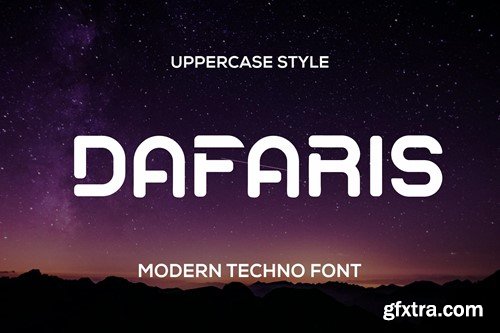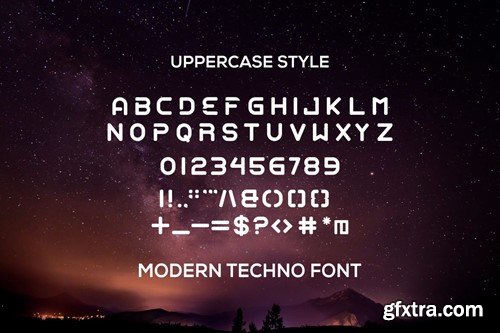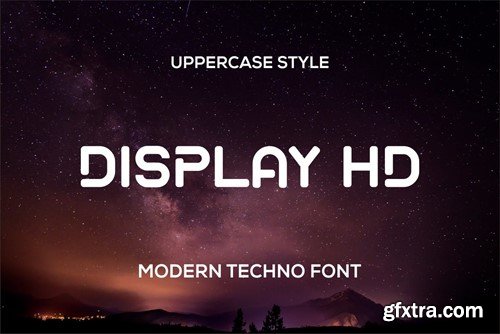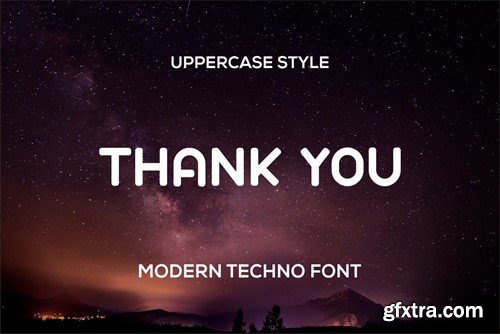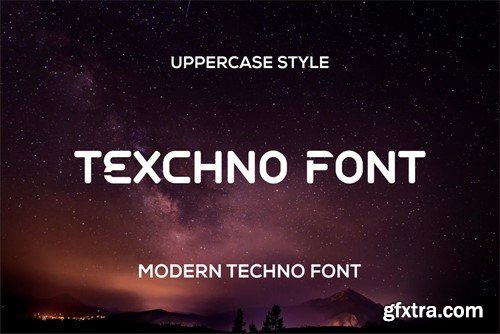
Dafaris Font
Introducing our new product Dafaris Font - Modern Fonts Dafaris Font - Modern Font is a bold and authentic display font. This font is suitable for any branding projects such as logos, esport and more. extraordinary in many contexts. available *otf *ttf